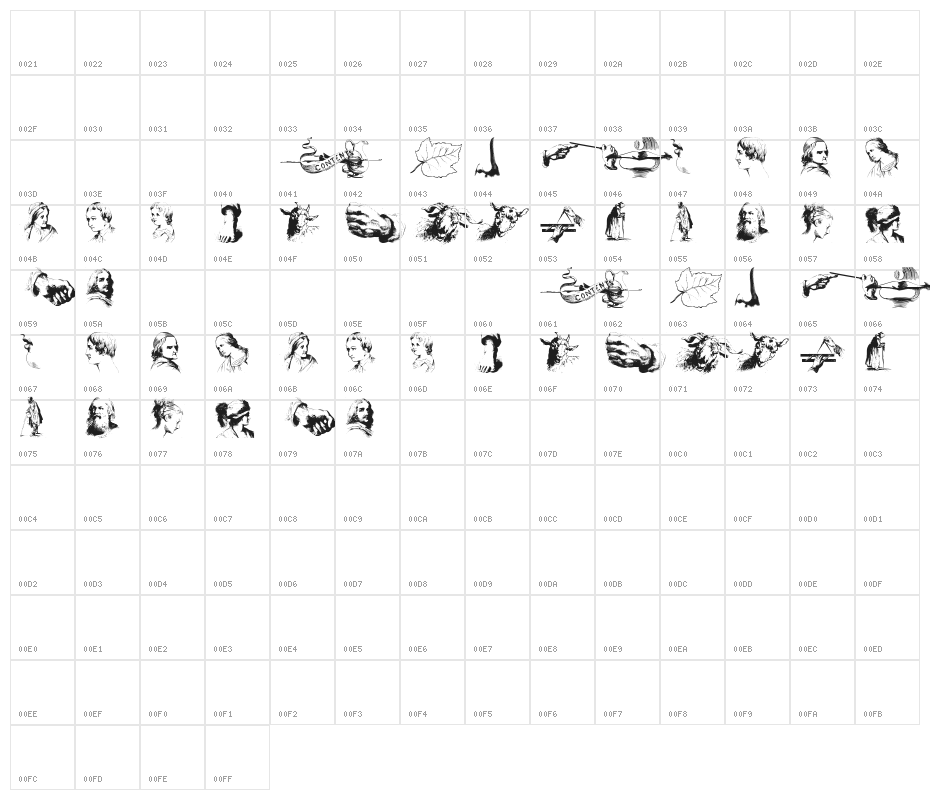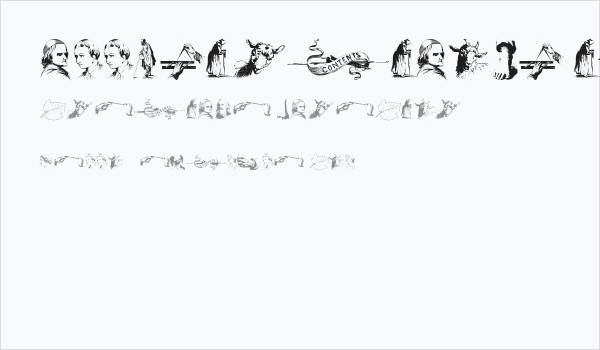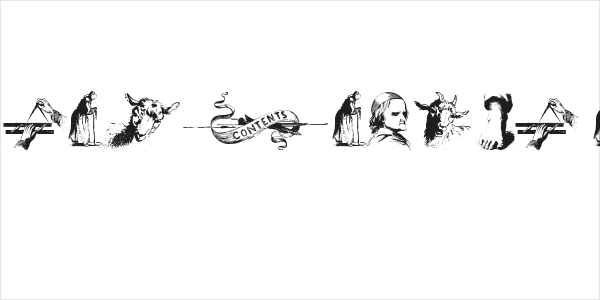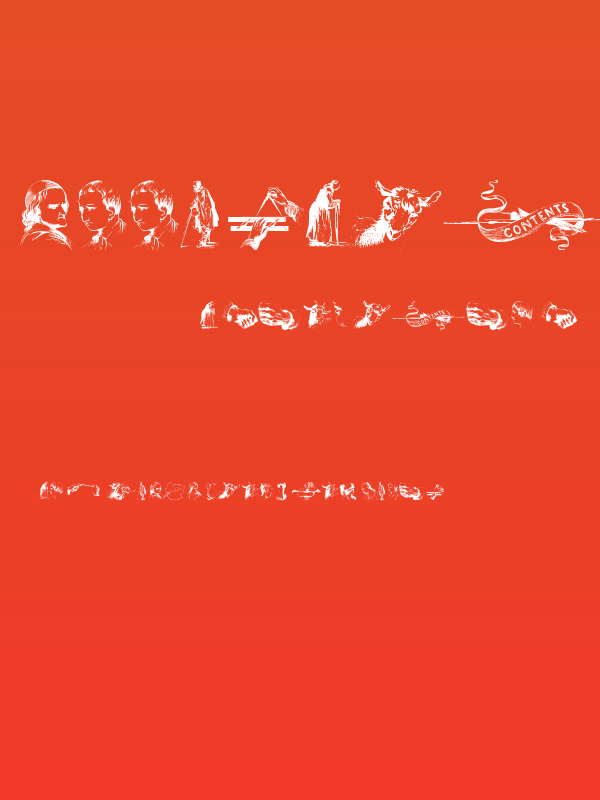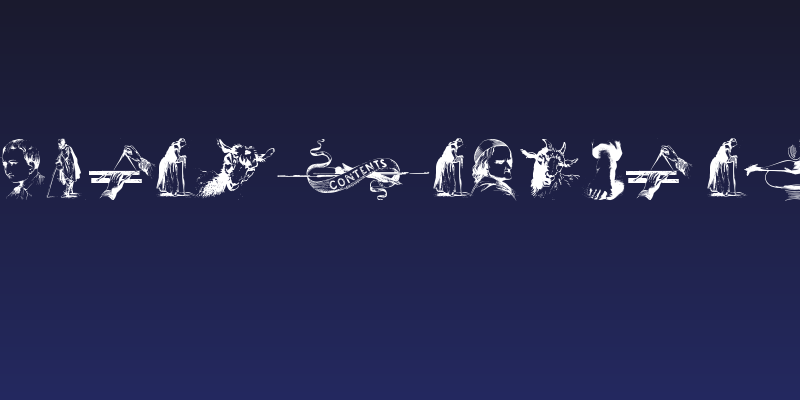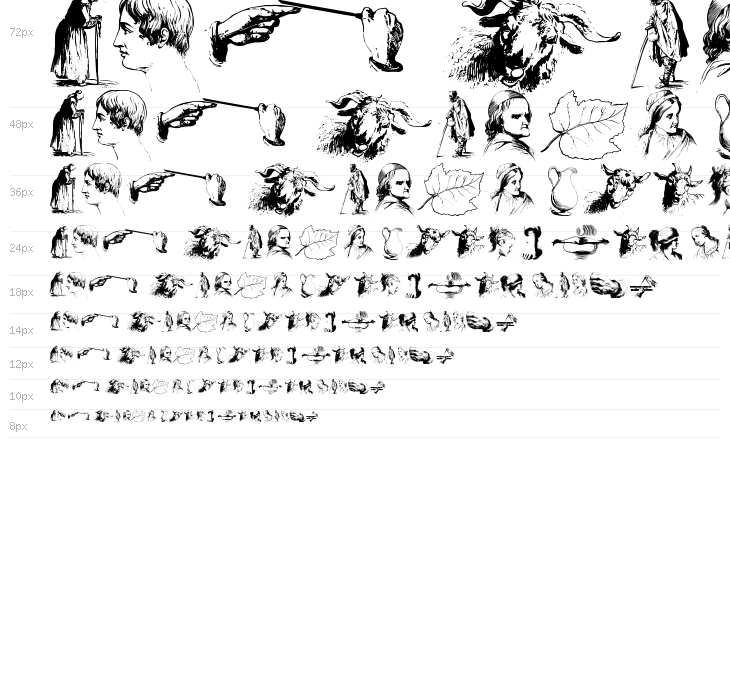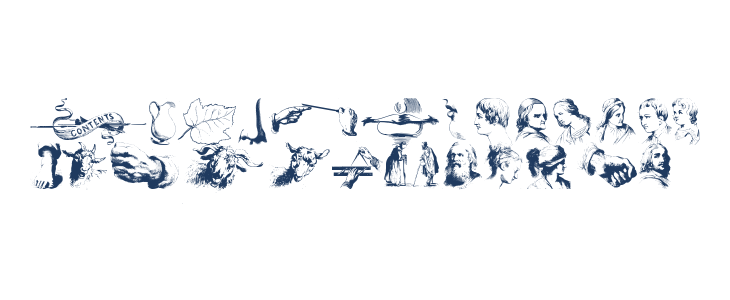
Illustrations tfb Font
Illustrations tfb Description
A decorative display font composed entirely of detailed black-and-white hand-drawn illustrations, including objects, animals, hands, faces, and various vintage motifs. Each character is represented by a unique illustration rather than a traditional letterform, giving the set an eclectic and artistic appearance.
| Overall Style | Vintage, Artistic, Decorative |
| Use Case | Logos, Headlines, Posters, Artistic projects |
| Proposed Projects | Book covers, posters, art projects, invitations, creative branding, editorial design. |